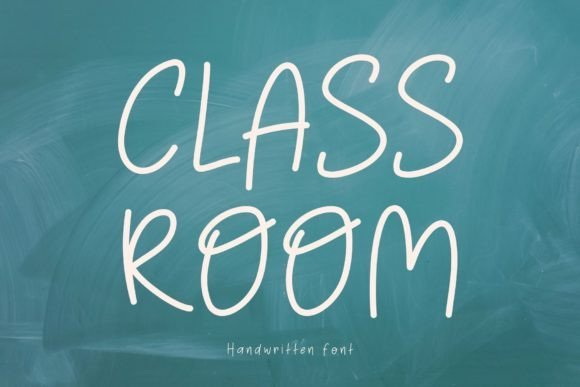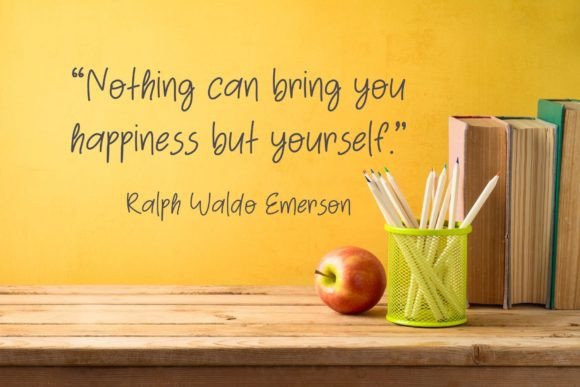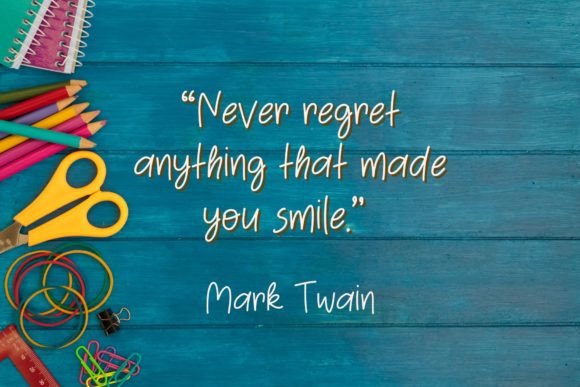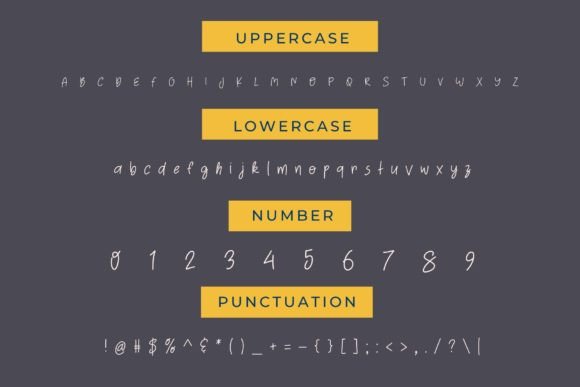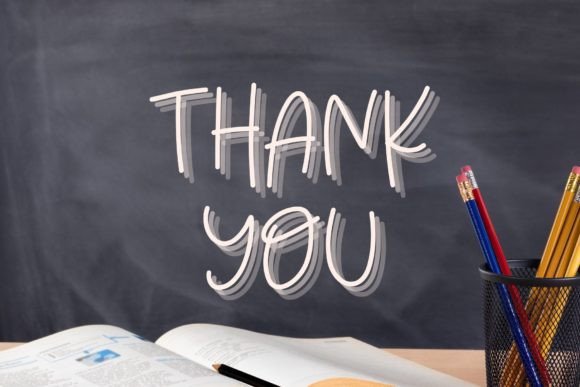
The Perfect Handwritten Companion for Your Designs
Remember the feeling of doodling in the margins of your favorite notebook, or the thrill of creating a handmade card for a loved one? Those moments of pure creativity are what make design so special. As designers, we’re always on the lookout for the perfect tools to bring our ideas to life. And that’s where the Classroom Font comes in – a charming, handwritten font that adds a touch of playfulness and authenticity to any project.
| 👤 Author | Brown Cupple Fonts |
This versatile font is more than just a pretty face – it’s a valuable asset for designers looking to add a personal touch to their work. Whether you’re crafting blog posts, logos, or invitations, the Classroom Font is sure to elevate your designs and leave a lasting impression. Its warmth and character make it the perfect companion for any creative project.
Classroom Font Key Features
- Unique Characteristics: Classroom Font features a unique, child-friendly design that is easy to read and understand, with clear distinctions between letters and numbers.
Designer Review: Classroom Font
Overall, I think Classroom Font is a solid choice for educational materials. ✨ It’s clean, easy to read, and gets the job done. I appreciate the classic, timeless feel that it brings to digital content. ✨
Here are some specific things that work well:
- Legibility: Classroom Font is highly legible, even at smaller font sizes. This is crucial for educational materials that often require reading large amounts of text.
- Clarity: The font is clear and concise, making it perfect for conveying complex information in a simple way.
- Consistency: Classroom Font has a consistent design throughout, which helps to maintain a cohesive look and feel.
That being said, there are some limitations to consider:
- Lack of personality: Classroom Font is a bit too straightforward and lacks the personality that some designers might be looking for.
- Not suitable for creative projects: If you’re working on a creative project that requires a more unique and eye-catching font, Classroom Font might not be the best choice.
- Not highly versatile: Classroom Font is primarily designed for body text and might not be the best choice for headings or other display text.
Overall, I think Classroom Font is a great choice for educational materials, but it might not be the best fit for every project. ⚠️ It’s worth considering your specific needs and goals before deciding whether to use this font.
Use the Classroom Font to create visually appealing and engaging educational materials, such as lesson plans, handouts, and presentations.
Experiment with different font sizes, colors, and styles to create a cohesive and professional look.
The Classroom Font is ideal for:
Lesson plans and educational materials
Presentations and slides
Handouts and worksheets
Posters and signs